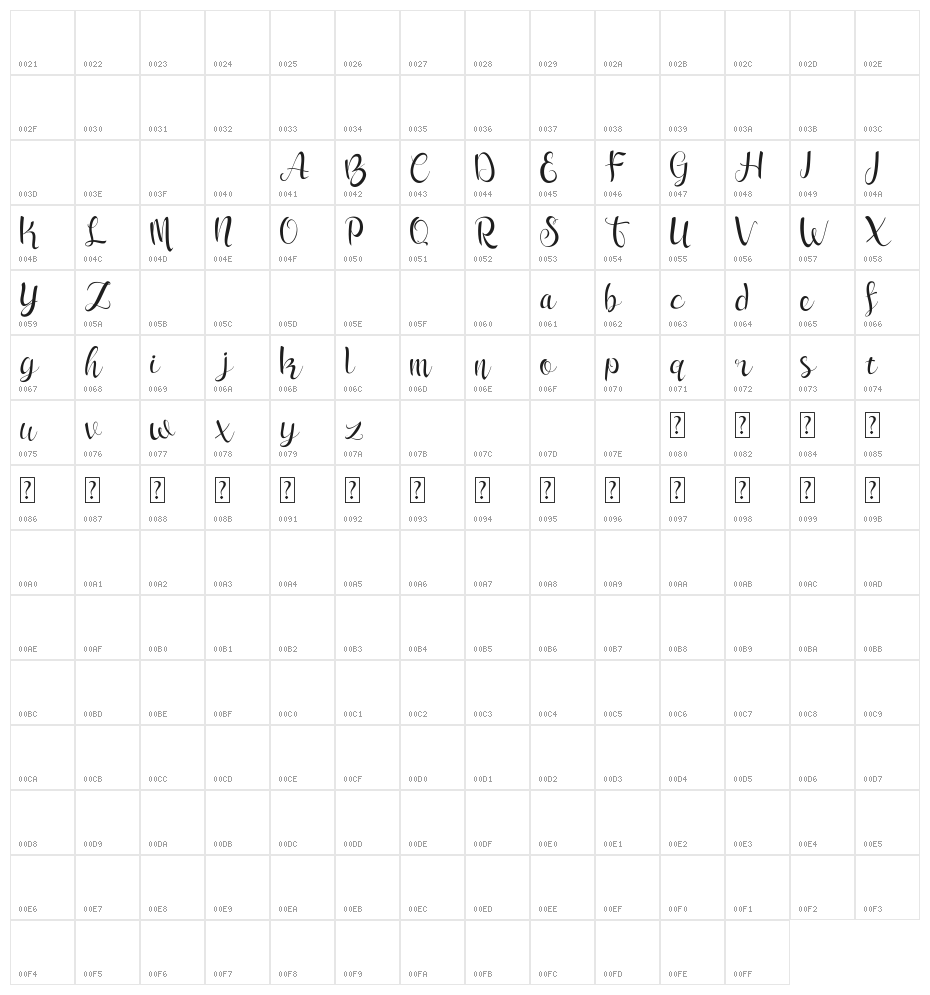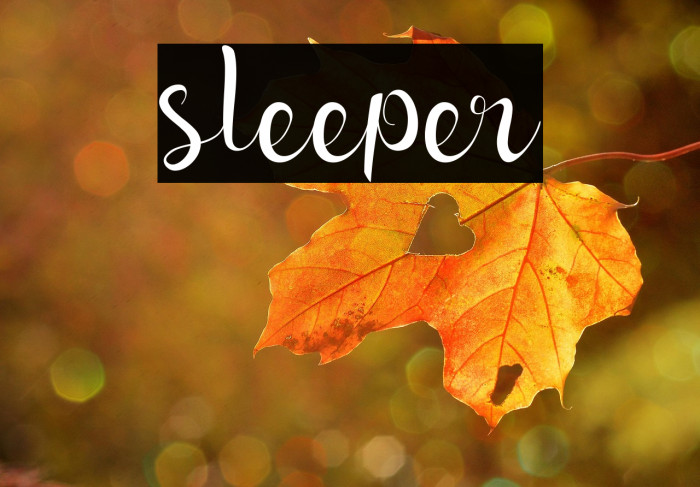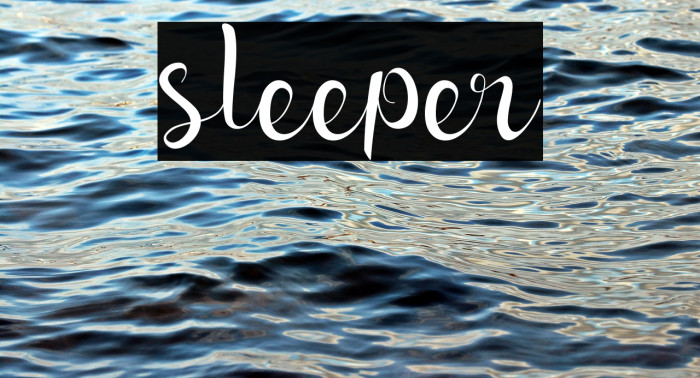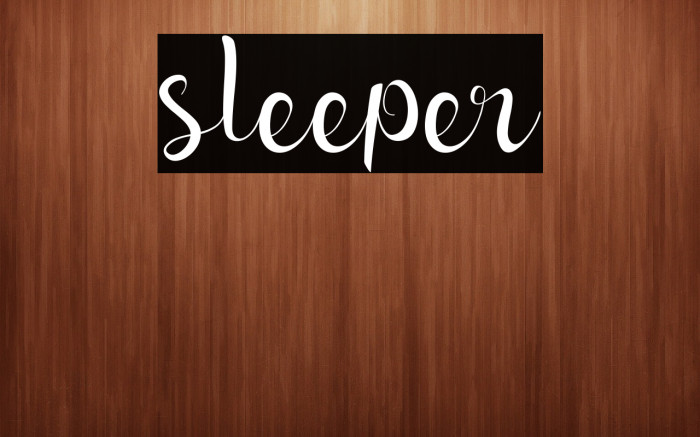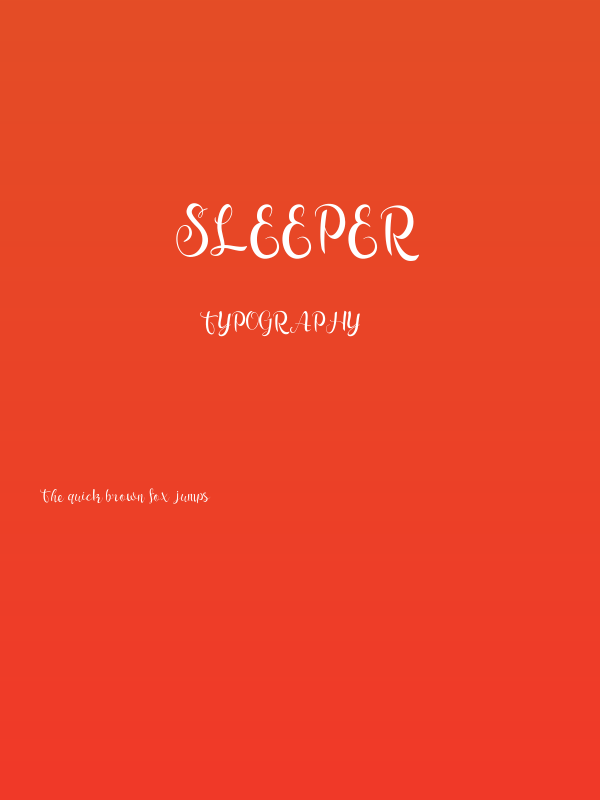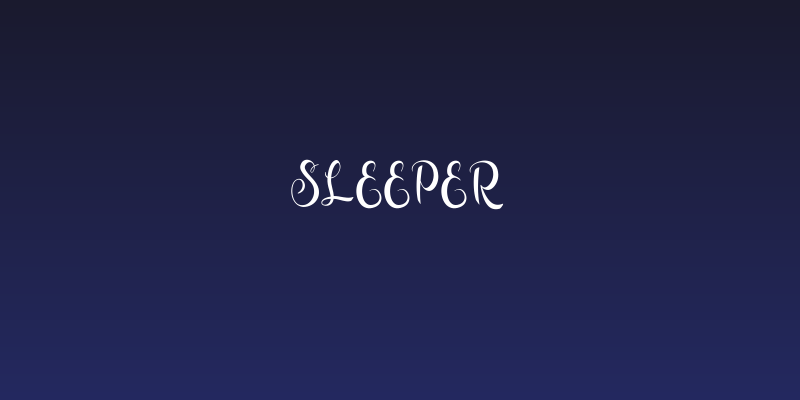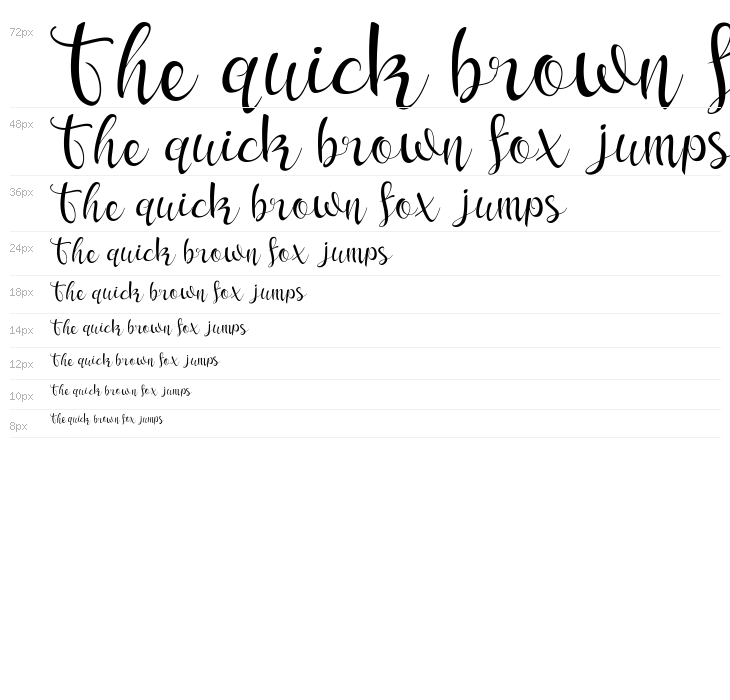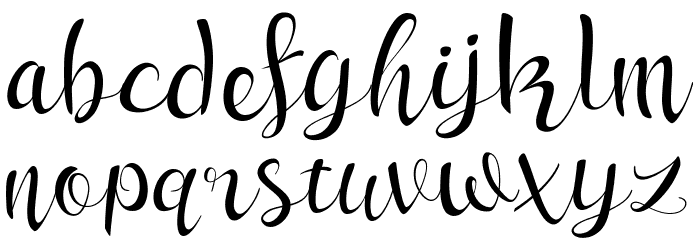
sleeper Font
sleeper Description
This font exhibits a flowing, elegant script style with a modern twist. The characters are crafted with smooth, sweeping curves and a consistent stroke width that adds a sense of fluidity and grace. The uppercase letters are particularly ornate, featuring extended swashes and loops that enhance their decorative appeal. Lowercase letters maintain a harmonious balance, with gentle ascenders and descenders that contribute to the font's overall aesthetic. The design is both sophisticated and approachable, making it suitable for a variety of creative applications.
Use CaseLogos, Invitations, Decorative text
Proposed ProjectsIdeal for wedding invitations, greeting cards, branding, and logo design.